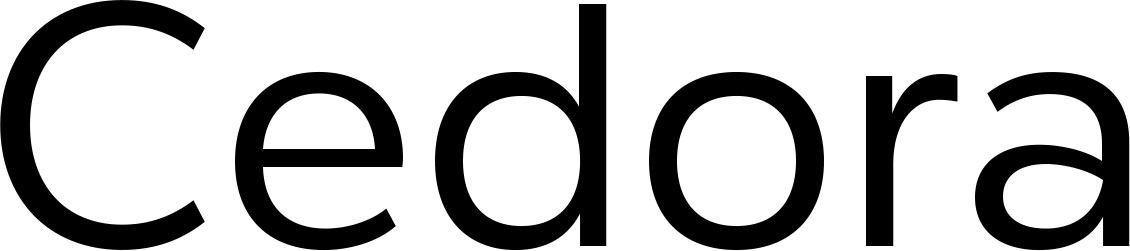
Cedora Font
If you want to make a simple and professional headline, Cedora might be what you need. This simple sans-serif font has four designs that give a formal and powerful tone to your text. Because of its simplicity, it can loo…
Designed byLafontype
If you want to make a simple and professional headline, Cedora might be what you need. This simple sans-serif font has four designs that give a formal and powerful tone to your text.
Because of its simplicity, it can look good on any kind of text and any kind of movie, flyers, or news headline will look good with it.